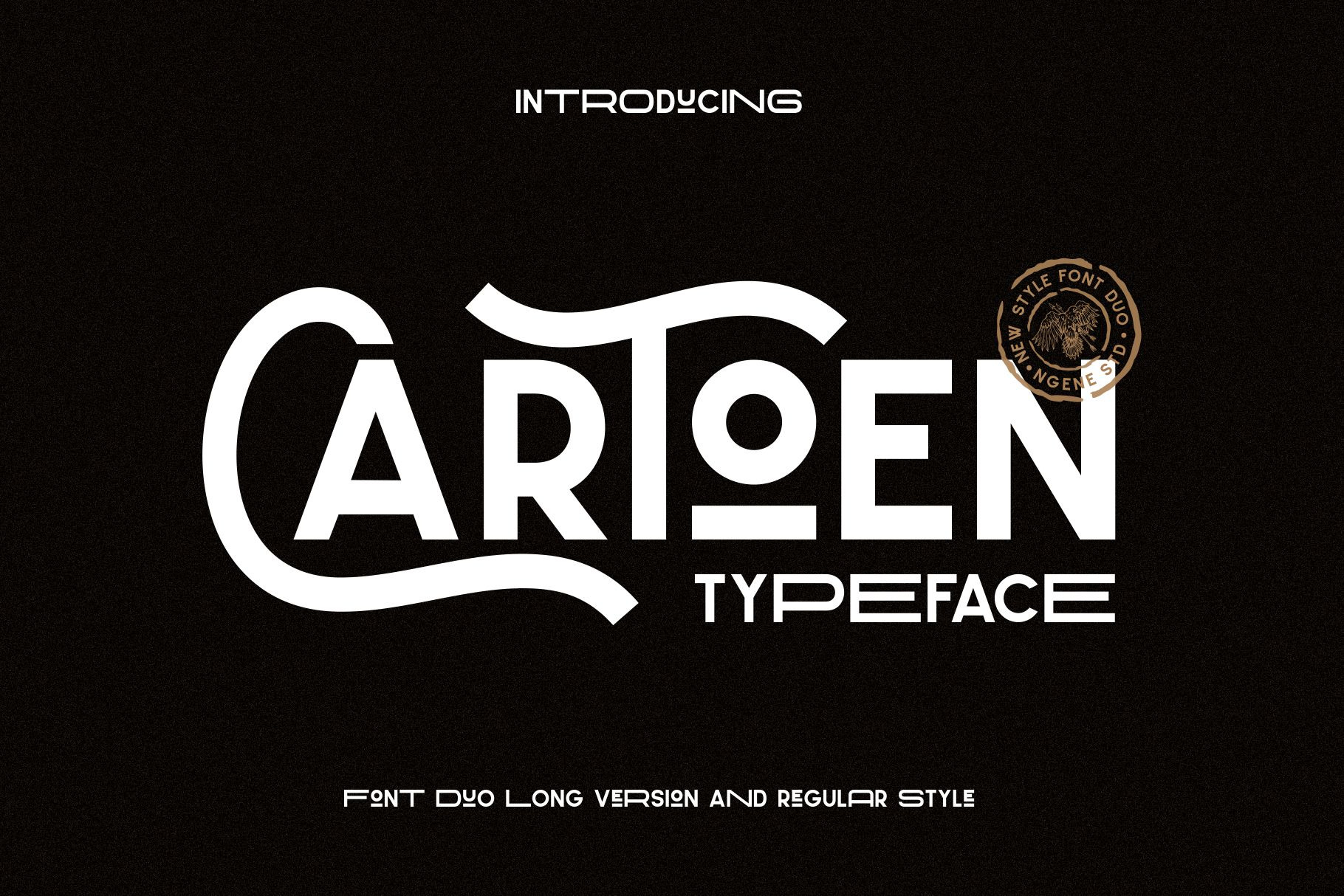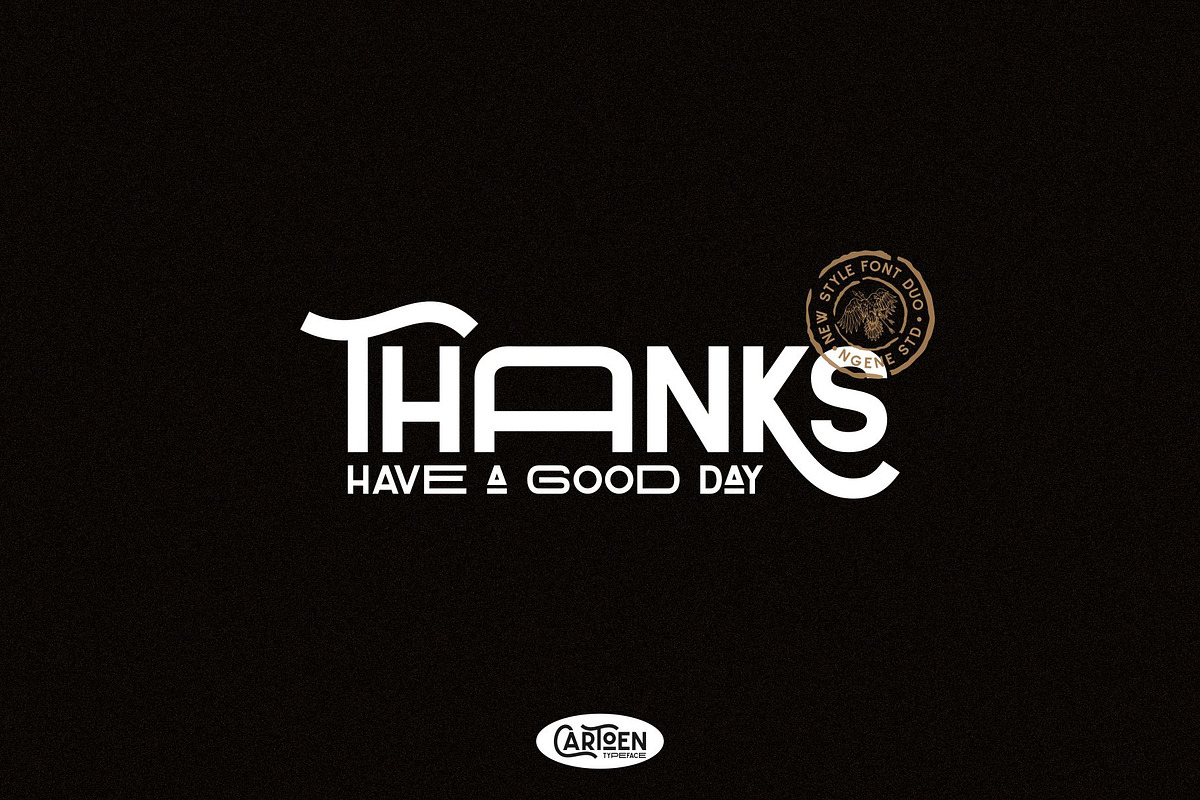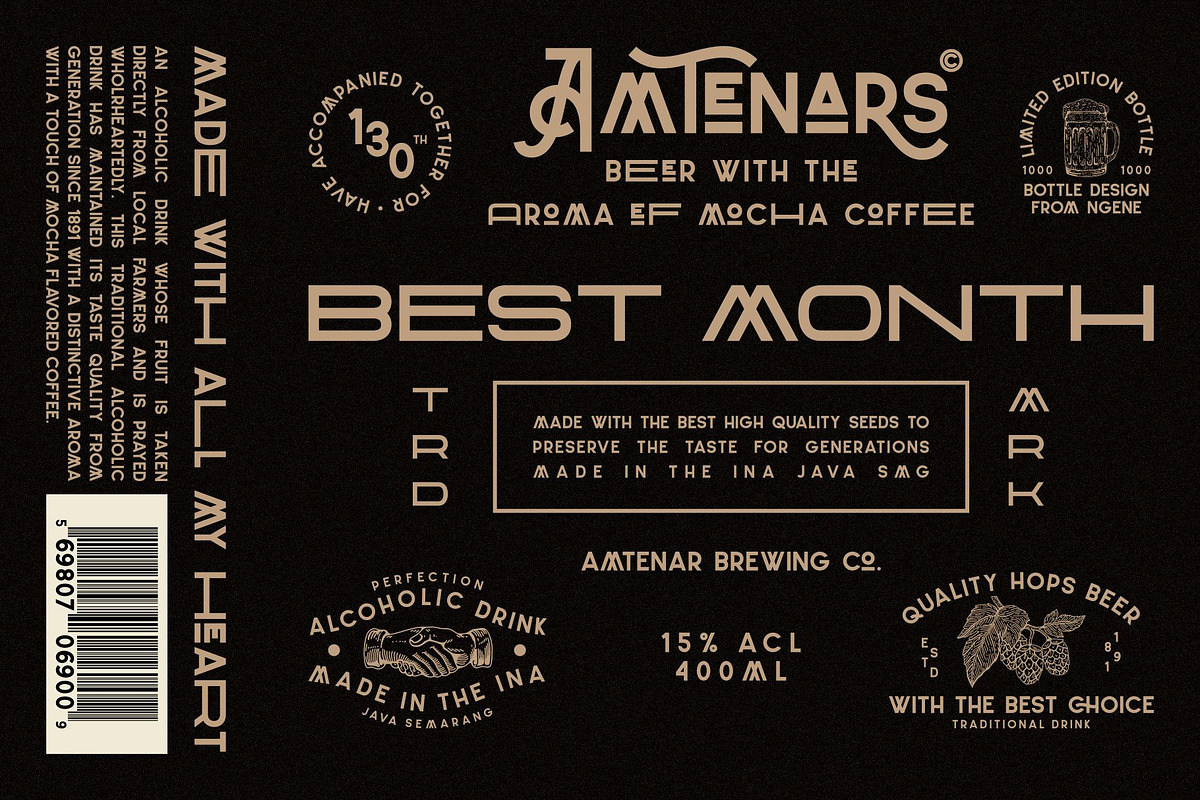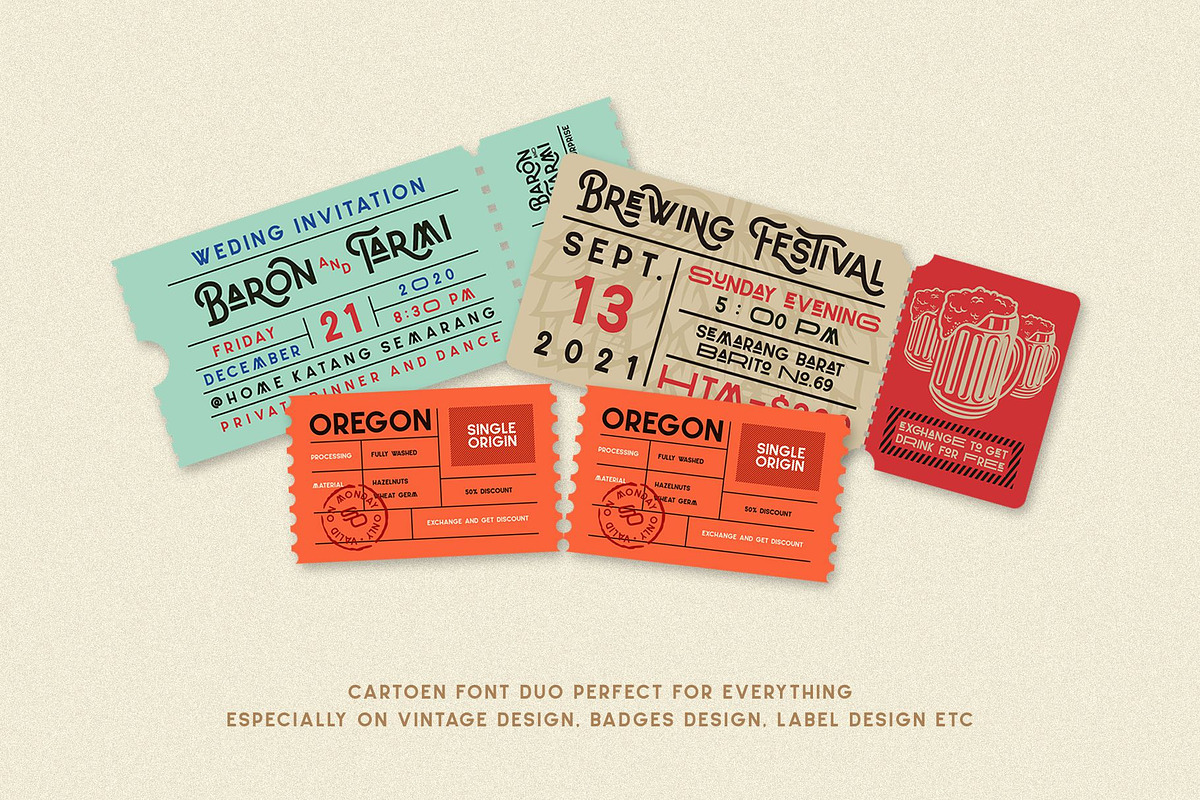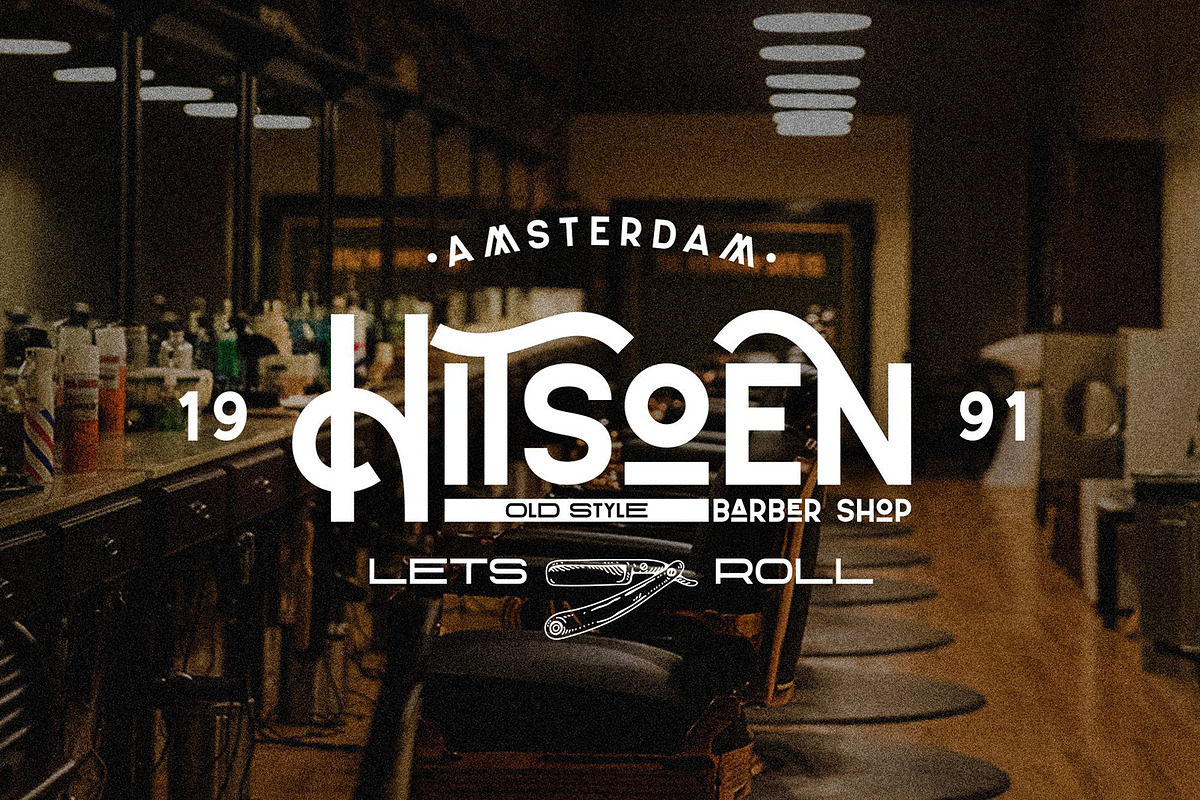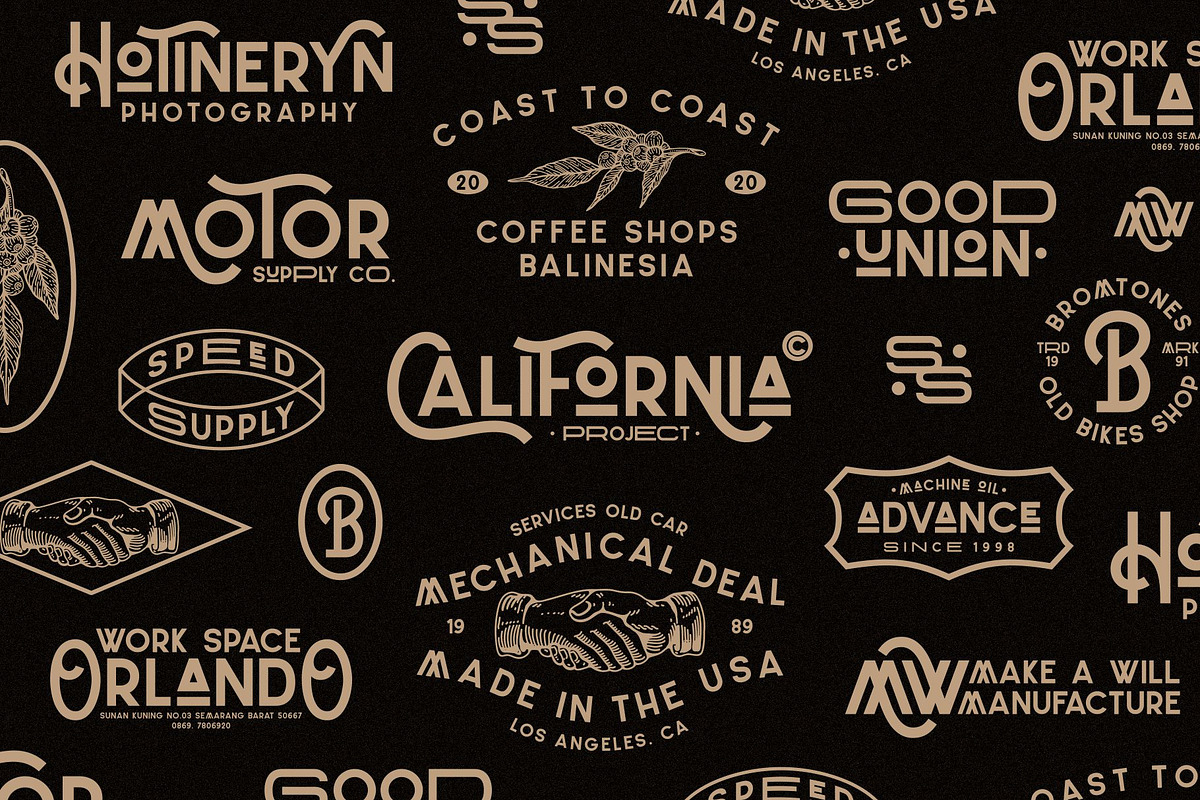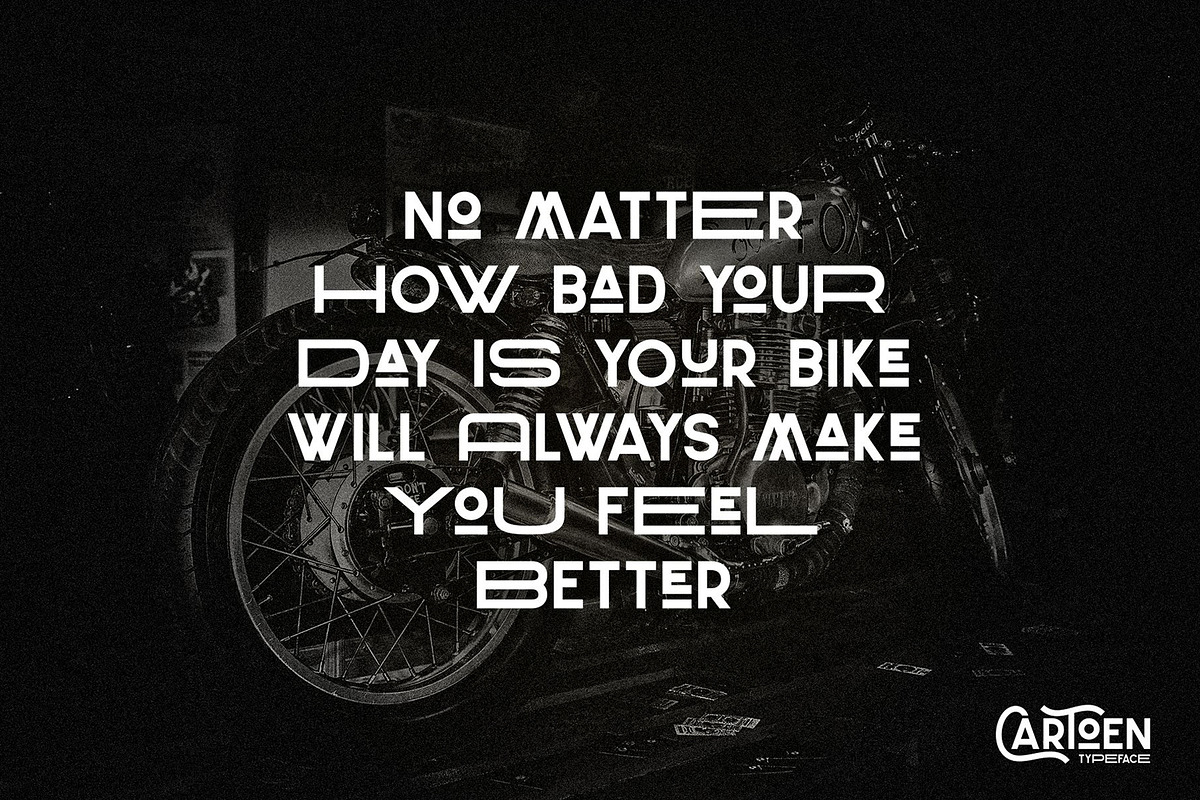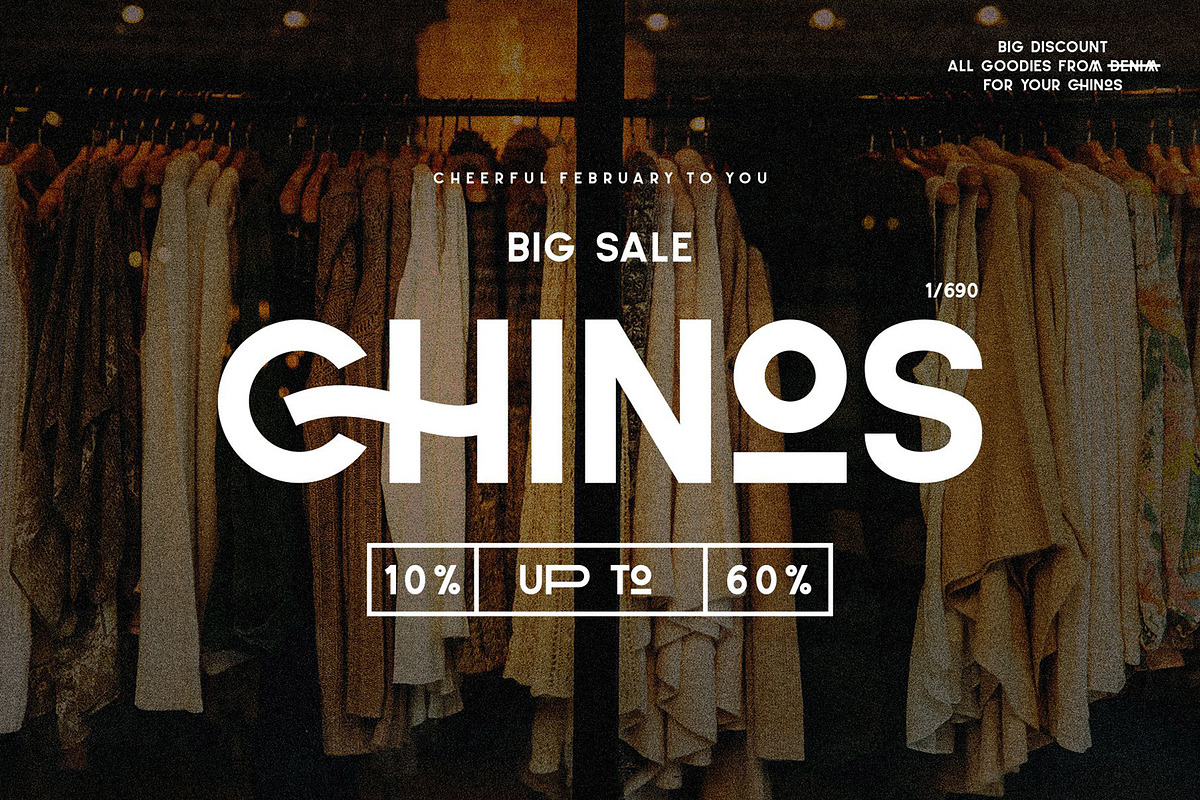
Cartoen Font Duo
Cartoen font duo is a refinement of the Horseman Sans Serif font which was developed with upper case and lower case and elongated font styles. This font would be perfect to incorporate in your designs, especially vintage designs. The illustration that I use for the display above is a bonus illustration of the font Harrison, Roosevelt, Ironhead and The brone. This font is great for logos, badges, clothing, posters, and more. This font comes with opentype and truetype features as well as many alternative styles to enhance your design. This font is also multilingual supported.